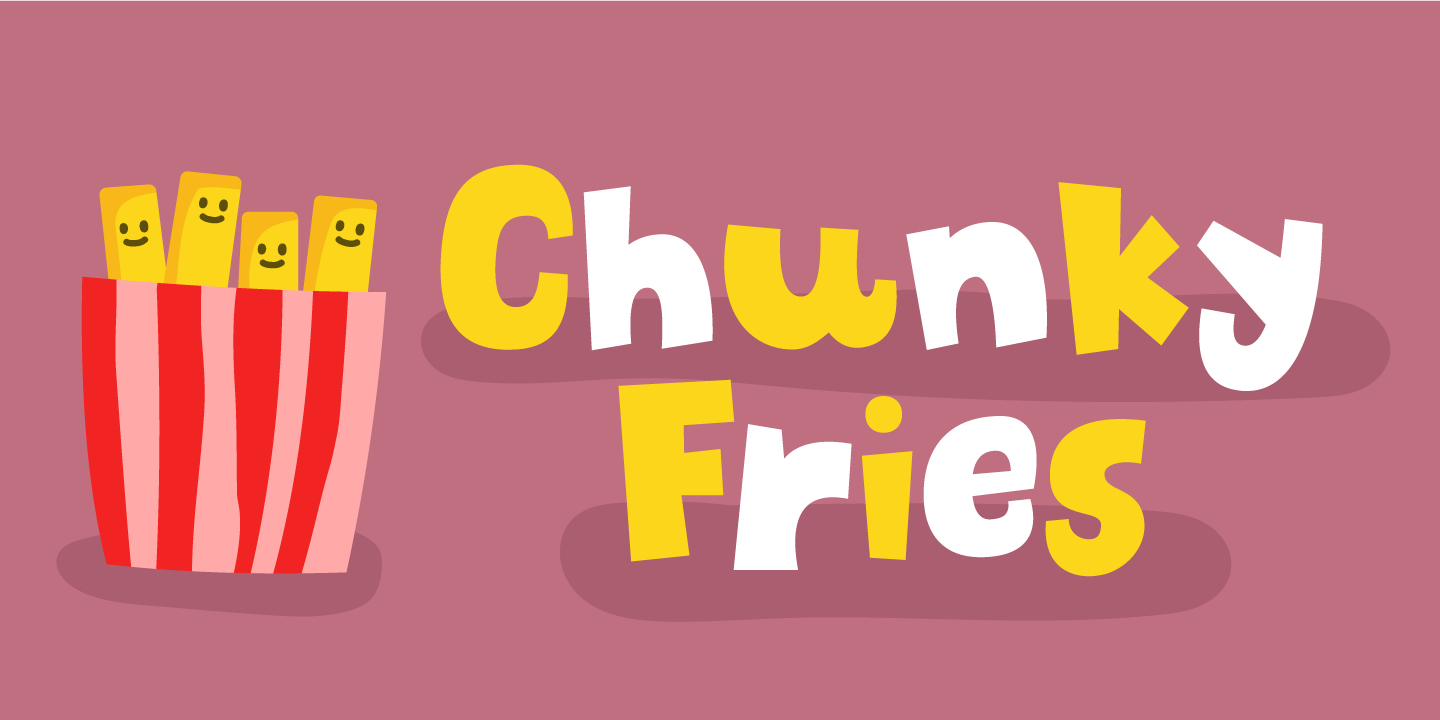
Chunky Fries Font is perfect for fast food restaurant branding, burger joint signage, snack bar menus, casual dining promotions, food truck graphics, comfort food advertising, carnival concession stands, and hearty appetite marketing campaigns.
This bold display typeface is exciting because it captures the satisfying thickness and golden crispiness of perfectly cooked french fries through chunky letterforms that evoke the irresistible appeal and comfort of classic American fast food culture.
The Chunky Fries Font family includes regular and extra-thick weights with crispy alternates, food-inspired decorative elements, and golden variants that enhance the delicious, satisfying atmosphere of any fast food design project.
Satisfying and delicious, Chunky Fries Font Free Download brings the irresistible appeal and comfort food satisfaction of golden french fries to contemporary typography through authentic fast food character. This appetizing font embodies the simple pleasure and instant gratification that defines great comfort food, making it perfect for establishments celebrating the joy of hearty, satisfying meals that hit the spot every time. Its chunky character reflects the substantial portion sizes and generous servings that create loyal customers and satisfied appetites, resonating with diners who appreciate honest food that delivers on flavor and value. Perfect for burger restaurants and food trucks, this font ensures your message carries the comfort food authenticity and satisfying presence that hungry customers crave when seeking delicious, filling meals. Whether used for drive-thru menus or carnival food stands, Chunky Fries Font Free Download delivers the fast food credibility and appetizing appeal that connects with people seeking the simple pleasure of perfectly cooked comfort food that satisfies both hunger and soul.